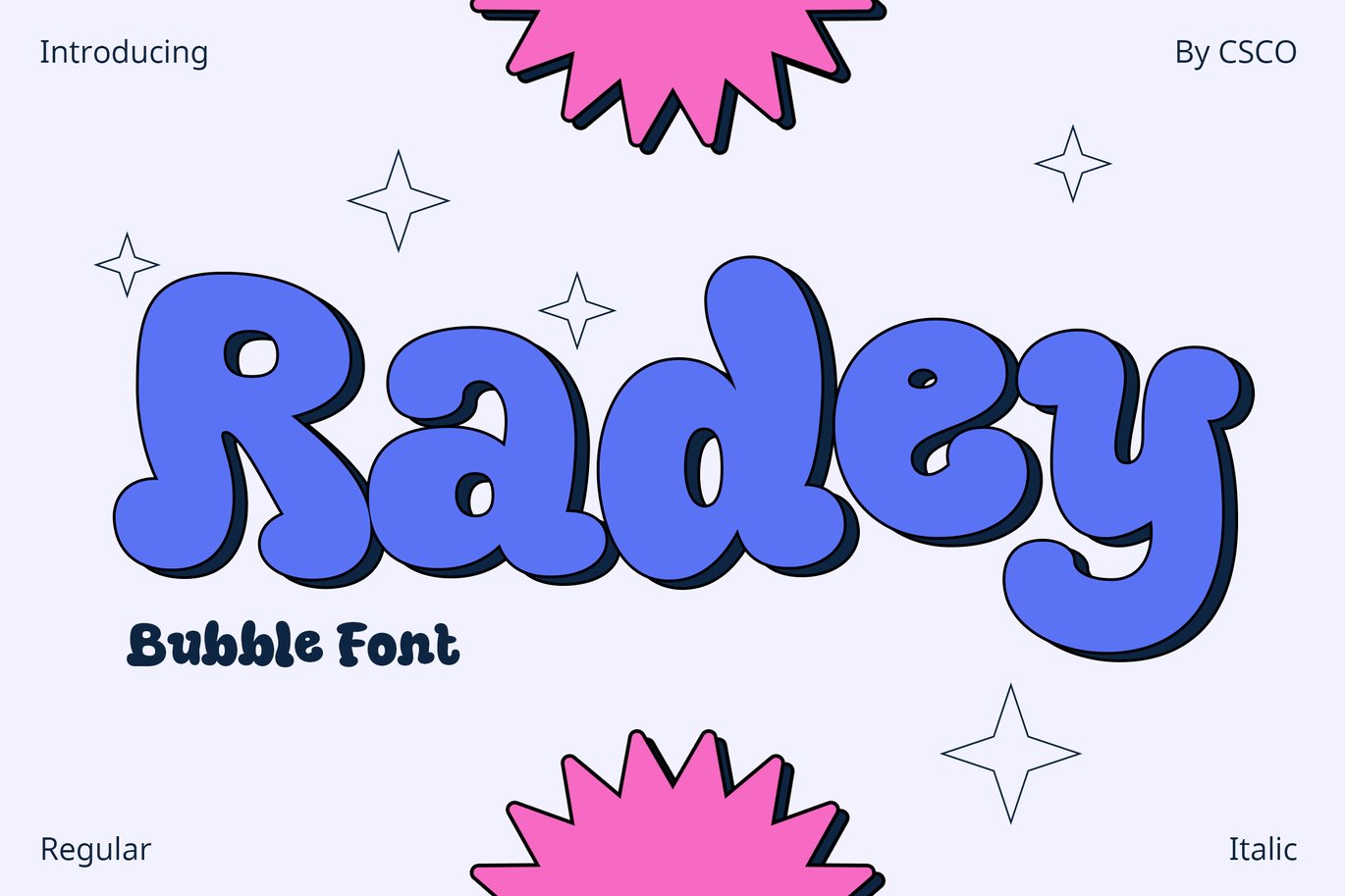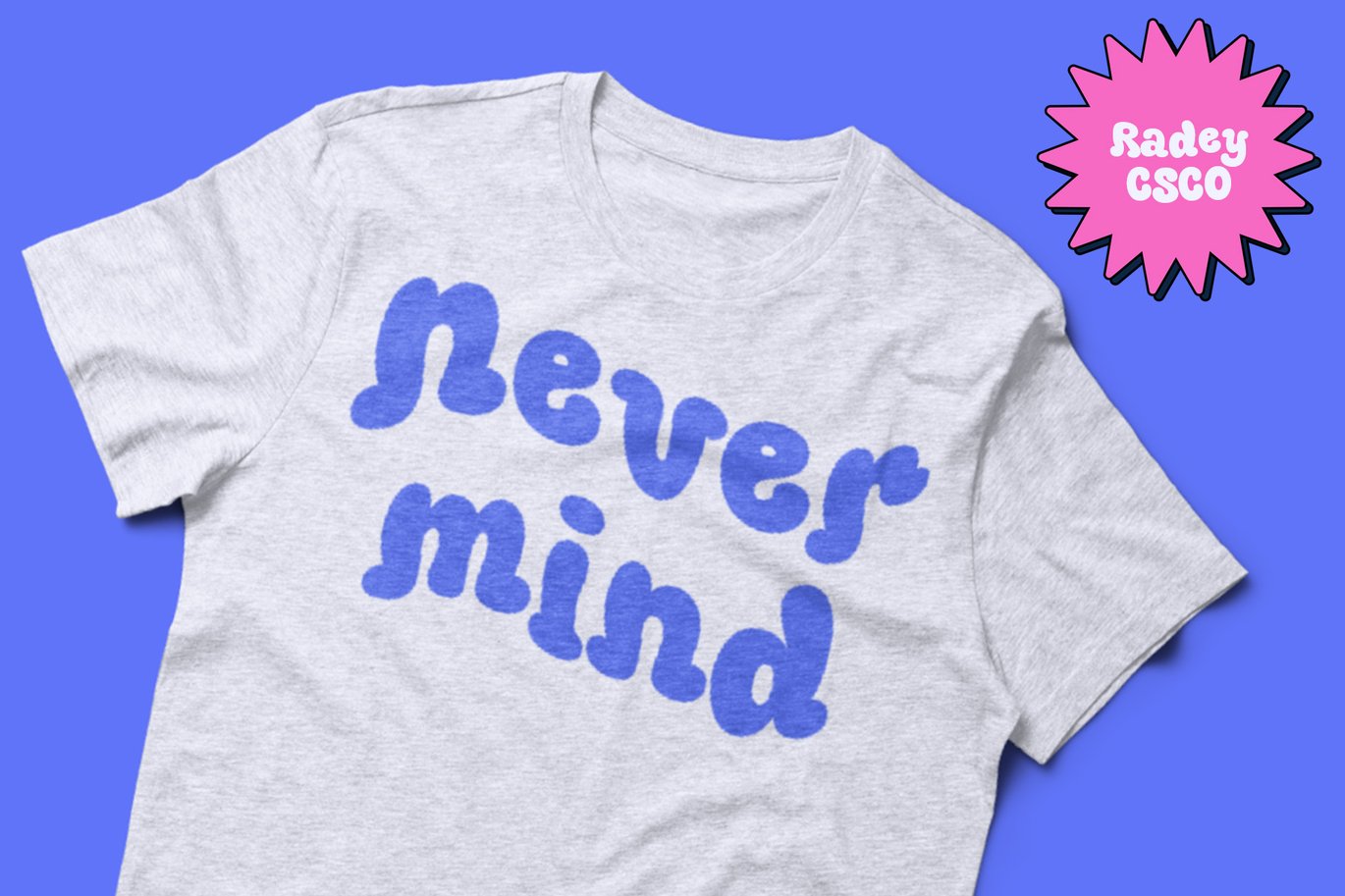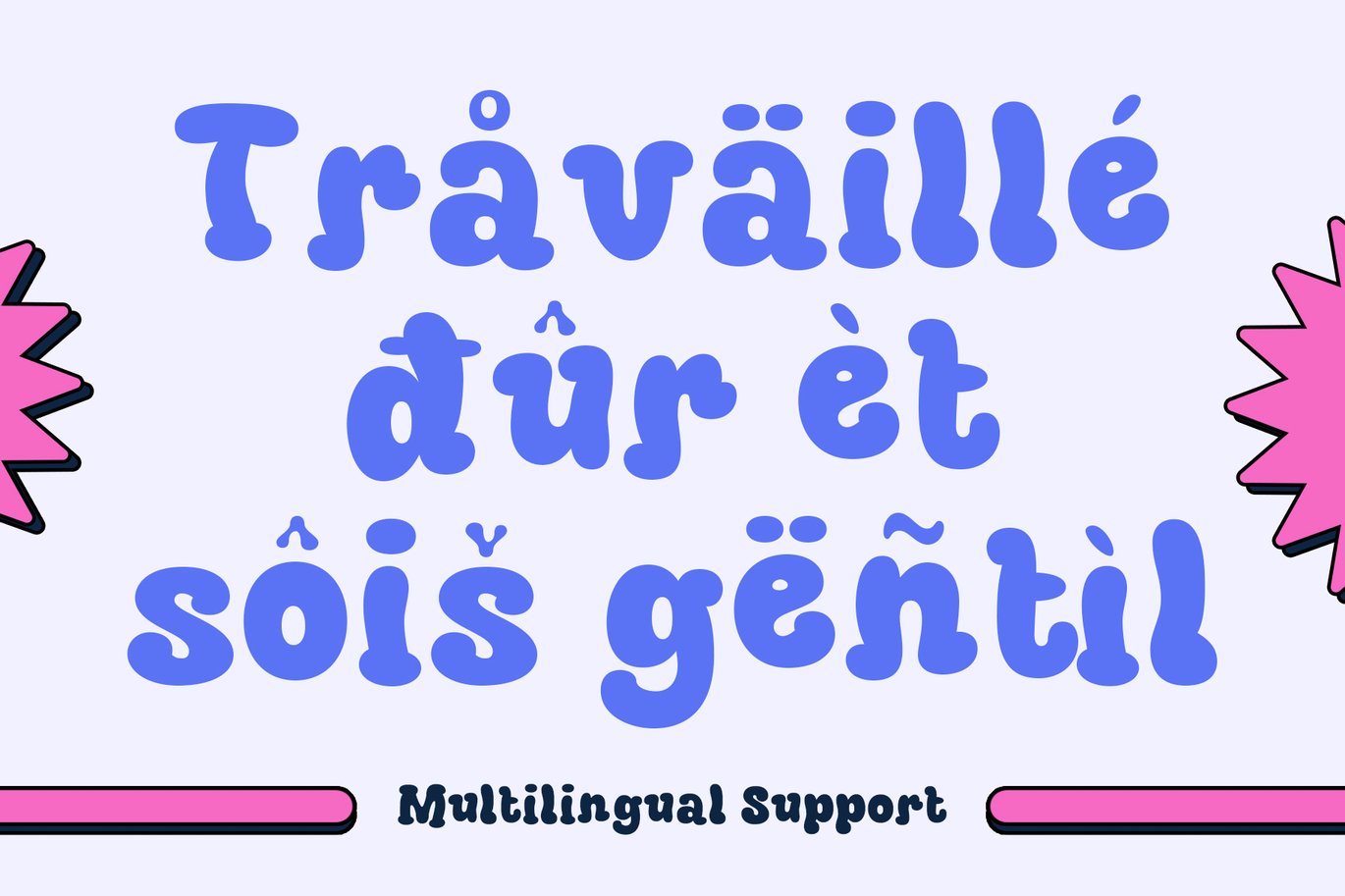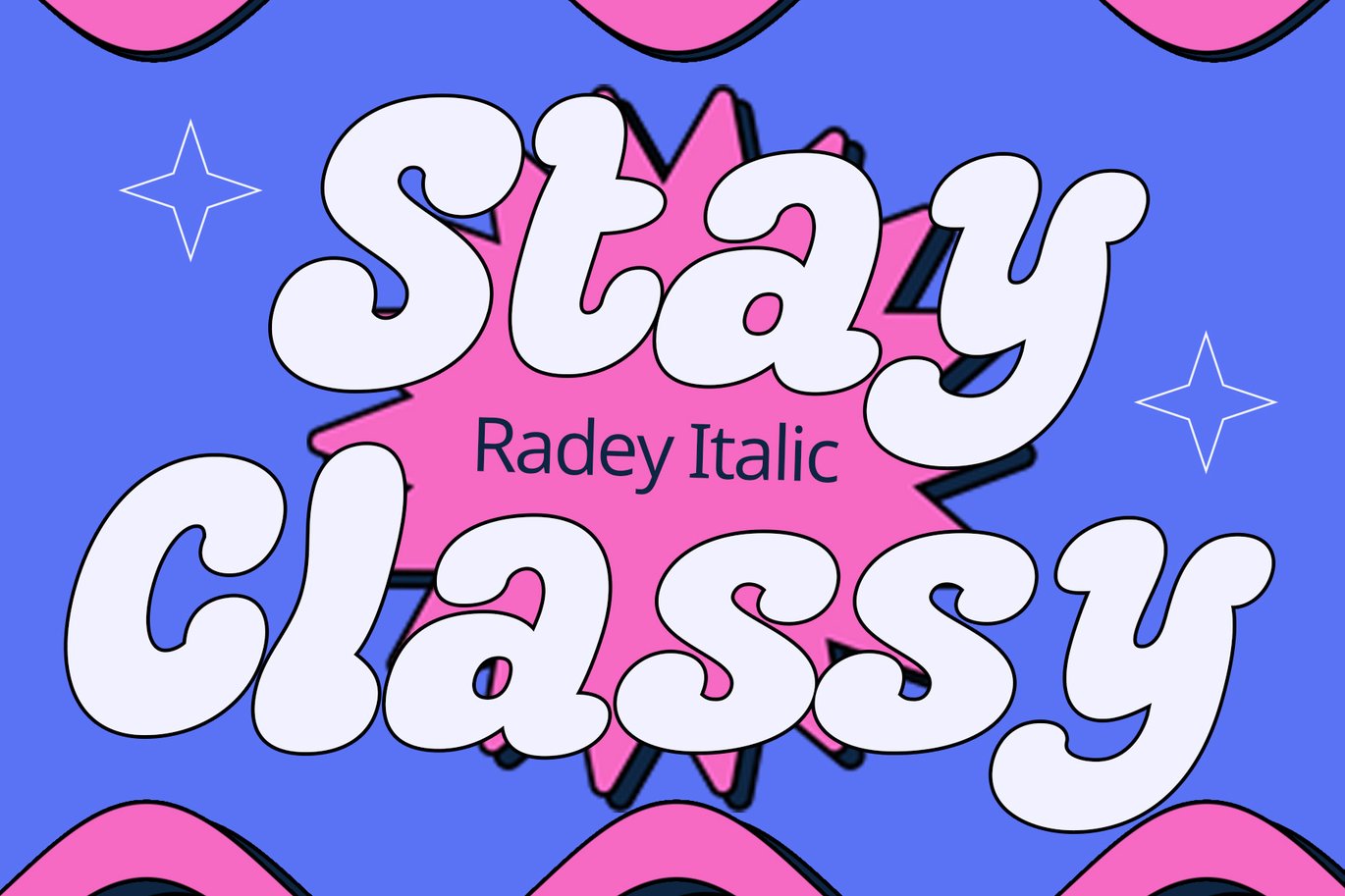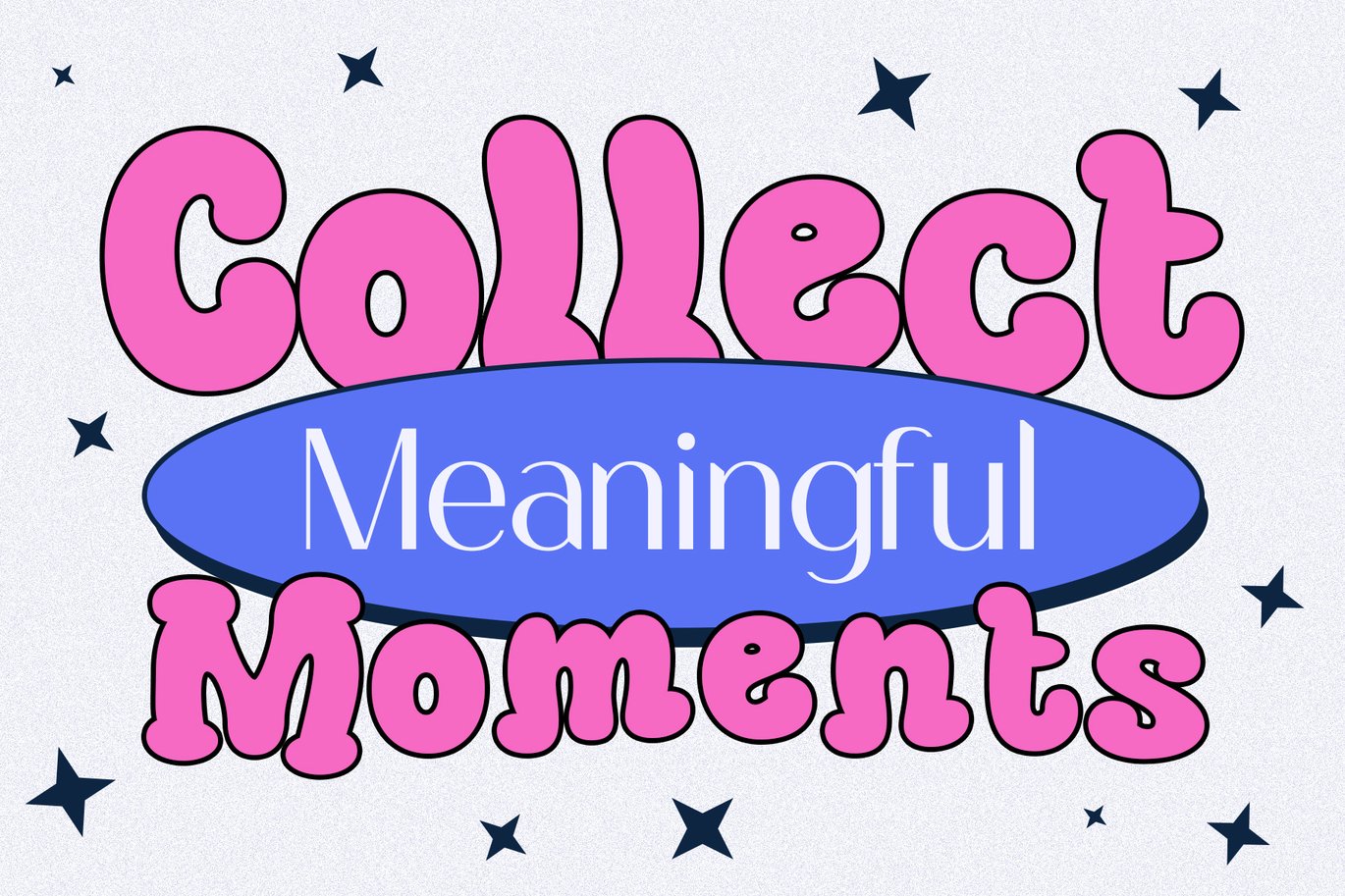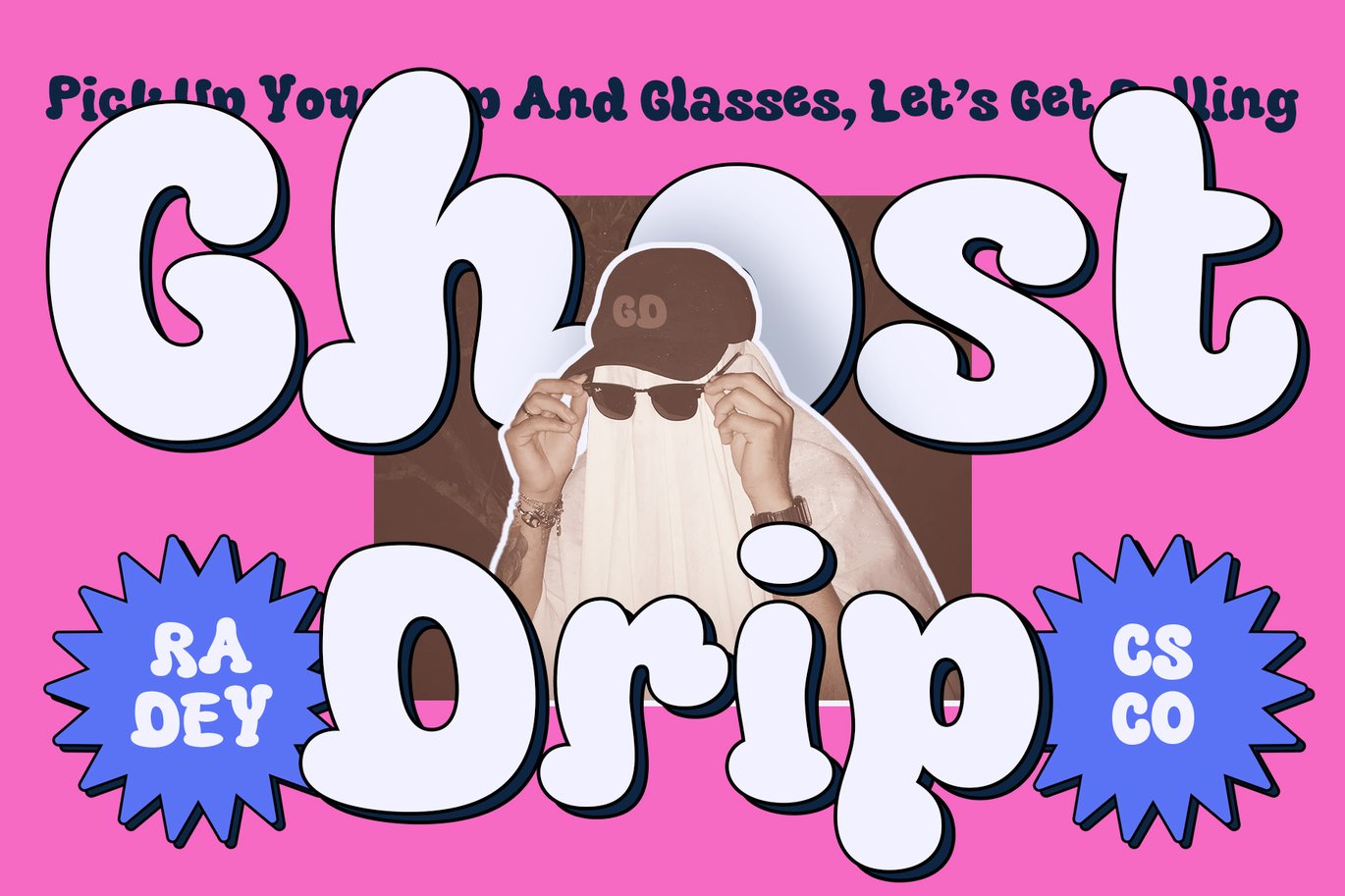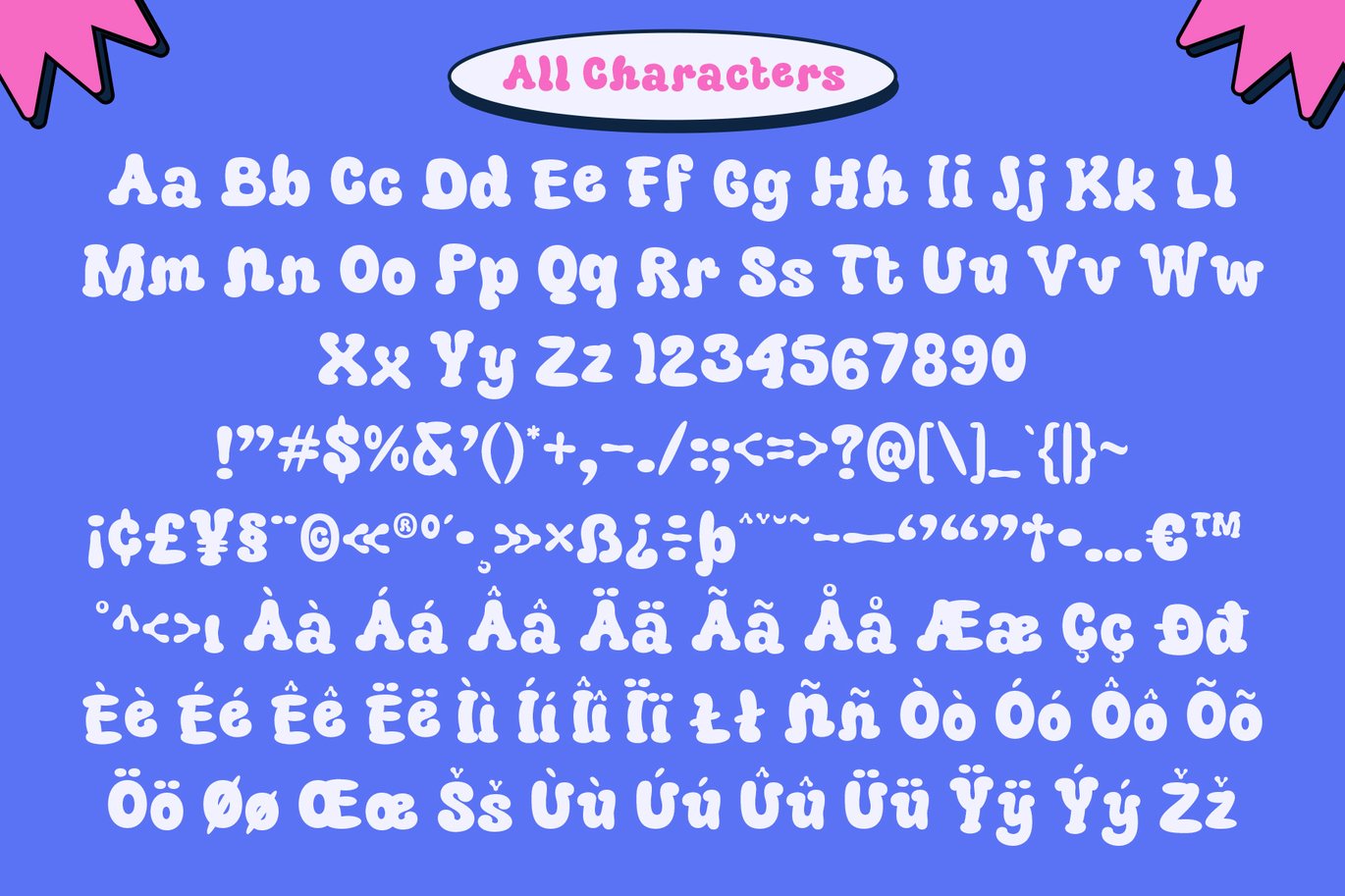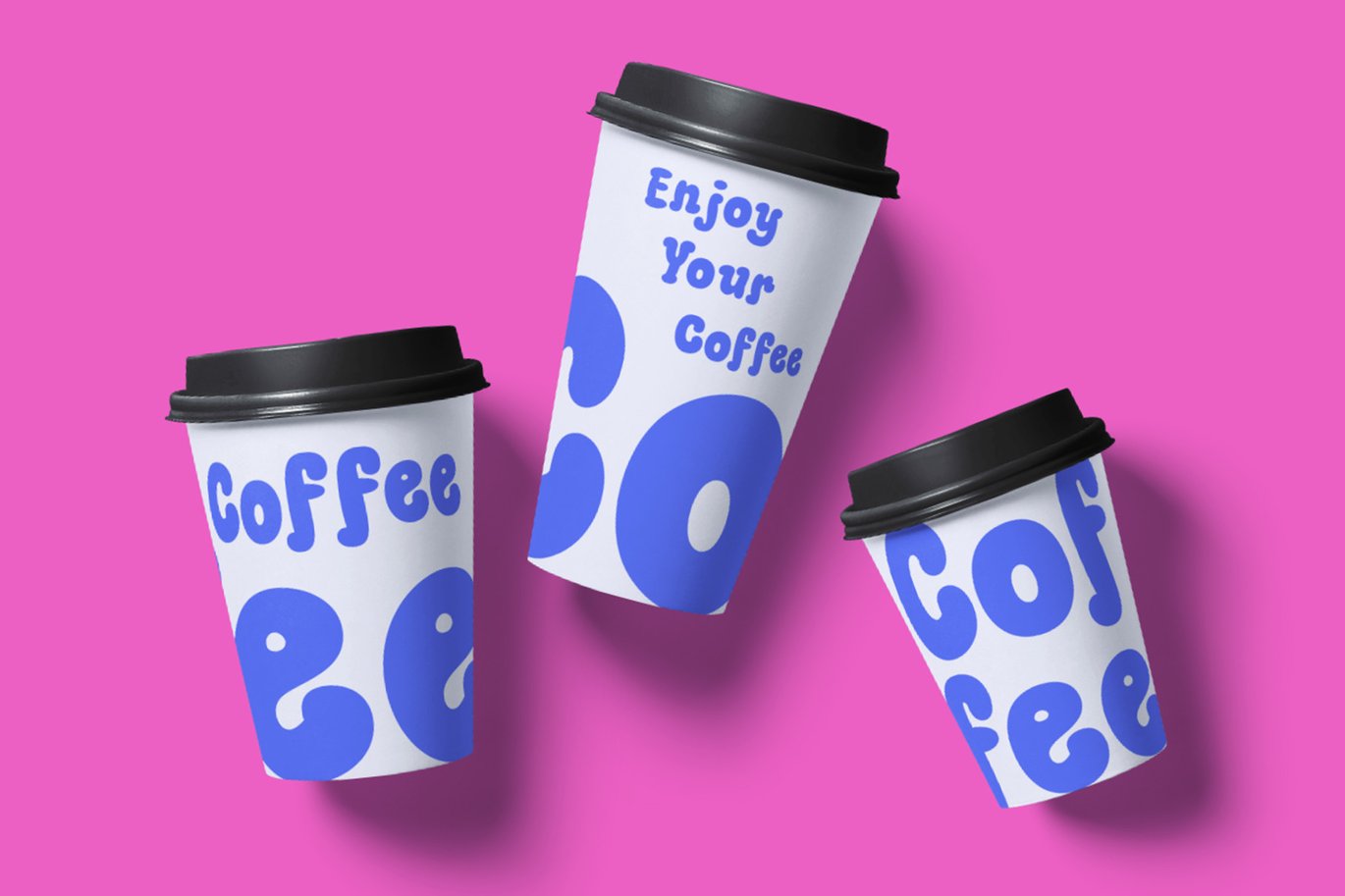
Radey – Bubble Font
Introducing Radey – Bubble Font
Radey – Bubble Font is a playful display font. Its design is inspired by the shapes of bubbles and clouds. The font has a light, airy feel, perfect for creative projects.
Key Features
Each character in Radey mimics a bubbly form. The round edges convey a soft and friendly vibe. This font is versatile, suitable for both digital and print media. It’s easy to read, making it great for headings and logos.
Accessibility and Appeal
Radey Regular
Radey Italic
Uppercase and lowercase characters
Accents (Supports Multilingual Characters)